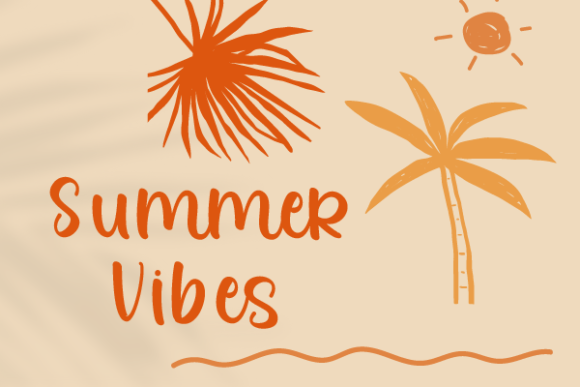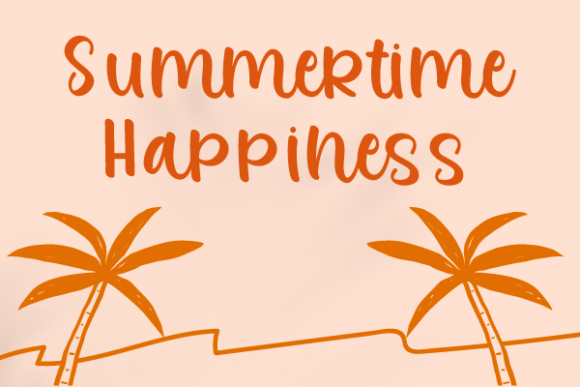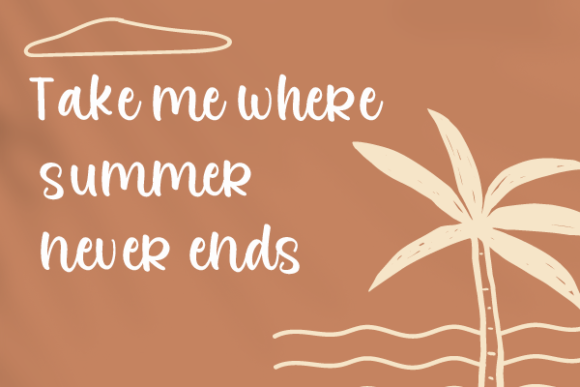
Introduction to Smile Moliey Font
Have you ever stumbled upon a beautiful handwritten font that made you want to create something special? For me, it was a moment when I was planning a friend’s birthday party, and I wanted to make the invitation truly unique. That’s when I discovered the Smile Moliey Font – a chic and casual handwritten font that instantly caught my attention.
As a designer, I know how valuable it is to have a reliable design resource like Smile Moliey Font in your toolkit. With its ravishing style and high-quality design, it’s perfect for creating gorgeous wedding invitations, beautiful stationery art, and eye-catching social media posts. Plus, its transparent background makes it easy to layer and combine with other design elements.
Key Features of Smile Moliey Font
- High-quality design resource ideal for creative projects, offering a unique and playful touch.
- Smile Moliey Font is offered in a single size, but it’s highly versatile and can be scaled to suit various design needs.
- Unique characteristics include its rounded edges and friendly feel, making it perfect for projects targeting a younger audience.
Honest Review: Smile Moliey Font
I recently came across the Smile Moliey Font and was excited to test it out for my latest creative project. As a designer, I’m always on the lookout for high-quality design resources that can elevate my work, and this font did not disappoint.
Here are some of the things that work well with the Smile Moliey Font:
- High-quality font design: The Smile Moliey Font has a unique and modern design that makes it perfect for creative projects.
- Transparent background: This allows for easy integration into any design, whether it’s a logo, poster, or social media graphic.
While the Smile Moliey Font is a great design resource, there are a few limitations to be aware of:
- Only a few styles available: At the time of writing, there are only a few styles available, which may limit its versatility.
- No extensive character set: The font may not have the full range of characters and symbols that some designers may need.
Overall, I’m impressed with the Smile Moliey Font and would definitely recommend it to other designers. Its high-quality design and free download make it a great addition to any design resource library. ⚠️ While there are some limitations, I believe the benefits far outweigh the drawbacks. ✨
The Smile Moliey Font is a versatile and high-quality design resource ideal for various creative projects. This free download offers a transparent background, making it suitable for a range of applications.
Tips for Getting the Most Out of Smile Moliey Font
For the best results, use the Smile Moliey Font in combination with other design elements to create visually appealing and engaging content.
The Smile Moliey Font is ideal for:
1. Social media posts and graphics.
2. Posters and flyers.
3. Presentations and reports.